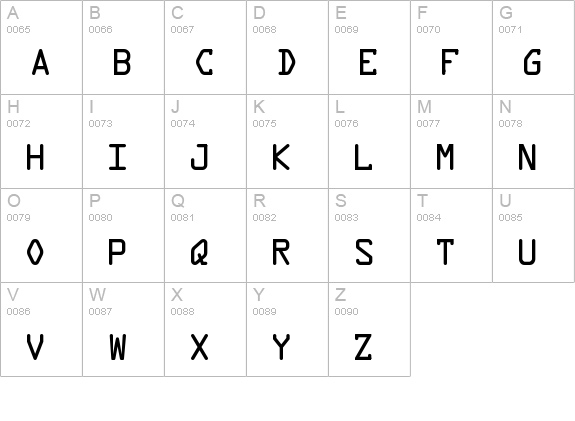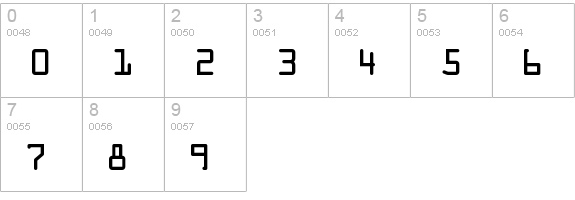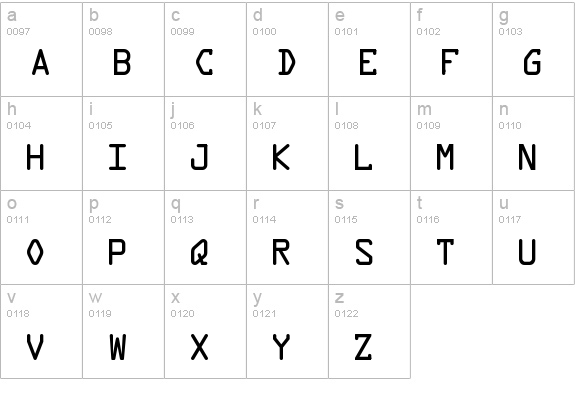
Introducing Data Control font, a sleek and modern typeface designed for all your digital needs. With its clean lines and futuristic appearance, Data Control is perfect for conveying a sense of efficiency and organization in your projects. The font features a unique blend of geometric shapes and sharp angles, making it ideal for technology-related designs. What's even better is that Data Control font is completely free to download at FontsMarket.com. Whether you're working on a website, presentation, or branding project, this versatile font will help you achieve a polished and professional look. Enhance your visuals with Data Control font and make a bold statement with your typography. Download it today and unleash the power of modern design.